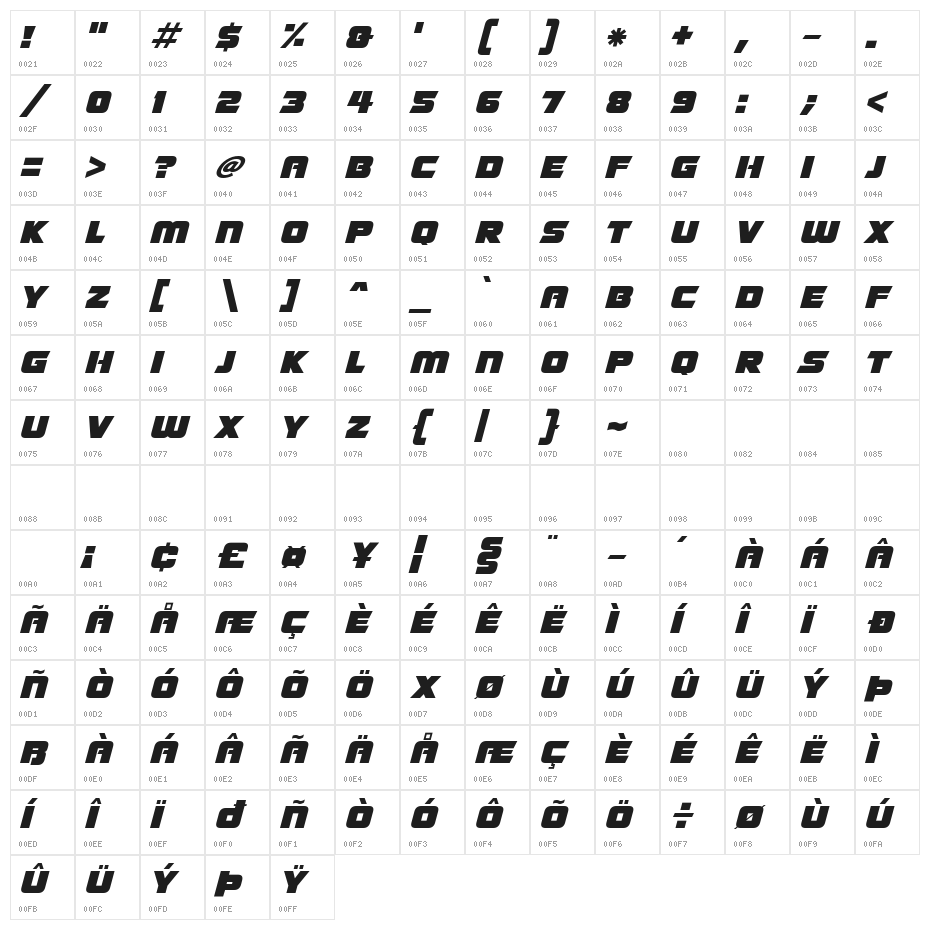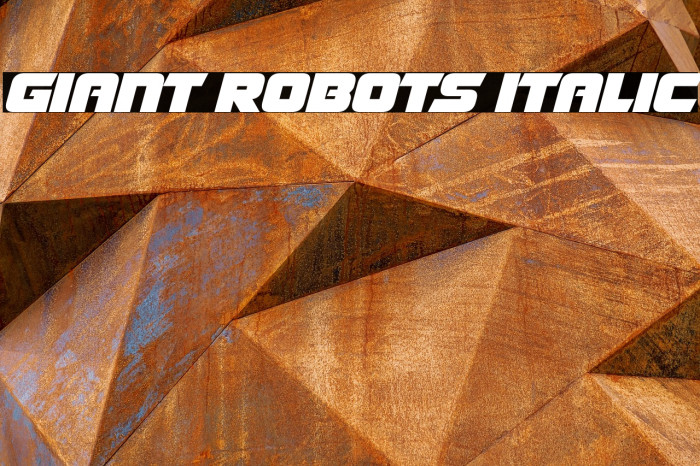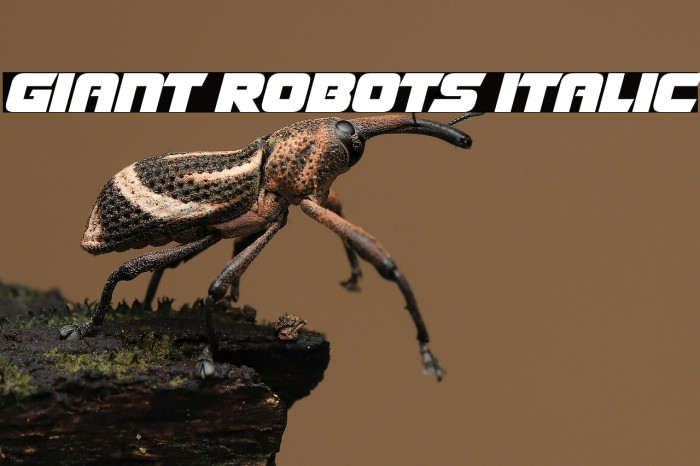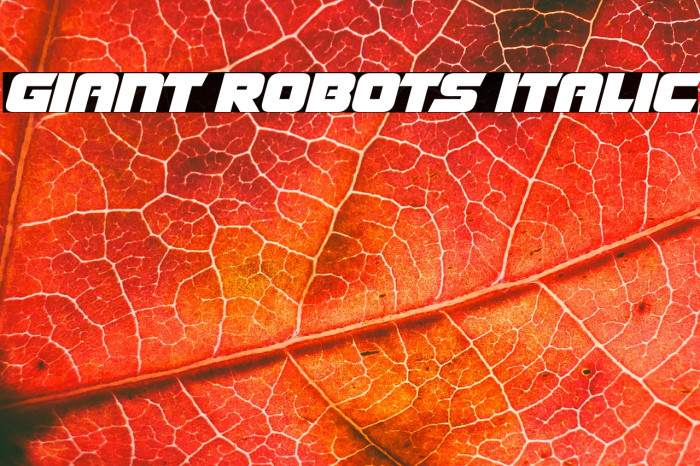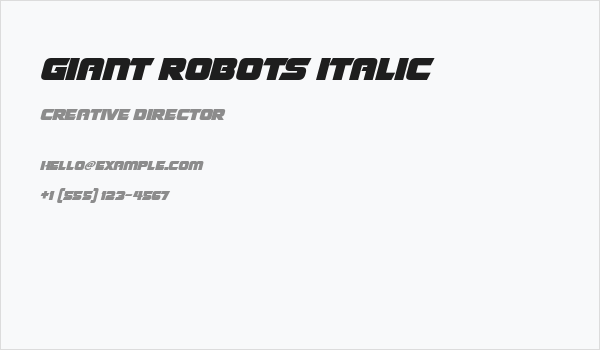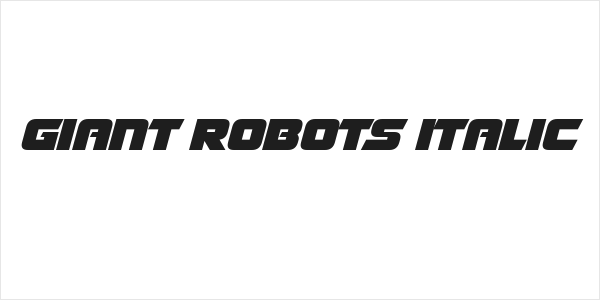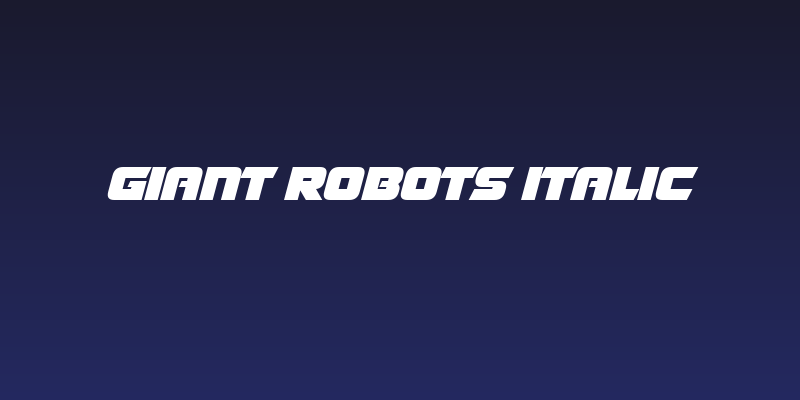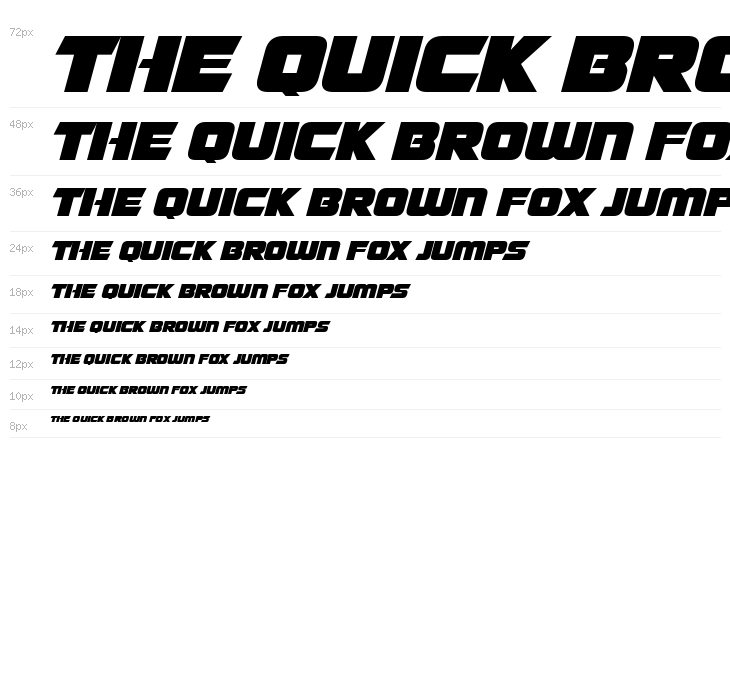
Giant Robots Italic Font
Giant Robots Italic Description
This font features a bold and dynamic italic style with a futuristic and mechanical aesthetic. The characters are designed with sharp angles and a forward-leaning stance, giving a sense of motion and speed. The uppercase and lowercase letters maintain a consistent style, with wide strokes and a uniform thickness that enhances readability. The numerals and special characters follow the same design principles, ensuring a cohesive look across all elements. The font's strong presence makes it ideal for attention-grabbing designs.
| Proposed Projects | Ideal for sci-fi themed posters, video game titles, technology branding, and automotive advertisements. |